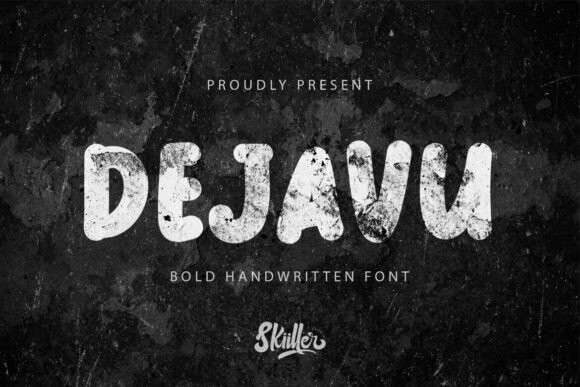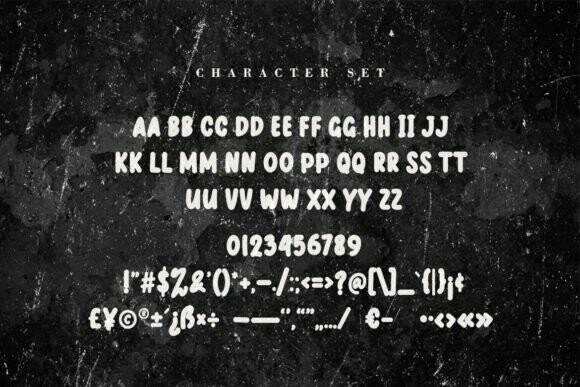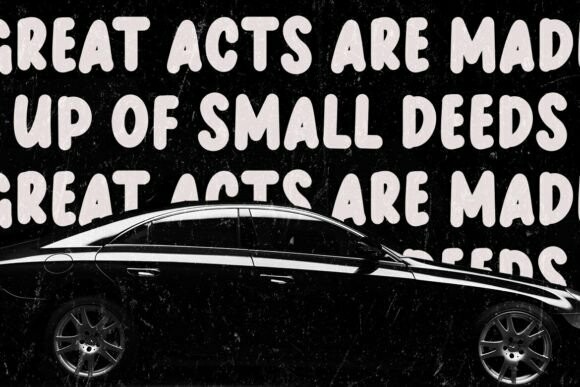
Dejavu Display Font
Designer: Skiiller Studio
Dejavu Display Font a handwritten font. This font will very suitable for your fun project like children party, cute quotes, or any cute fun related projects. Grab it now !